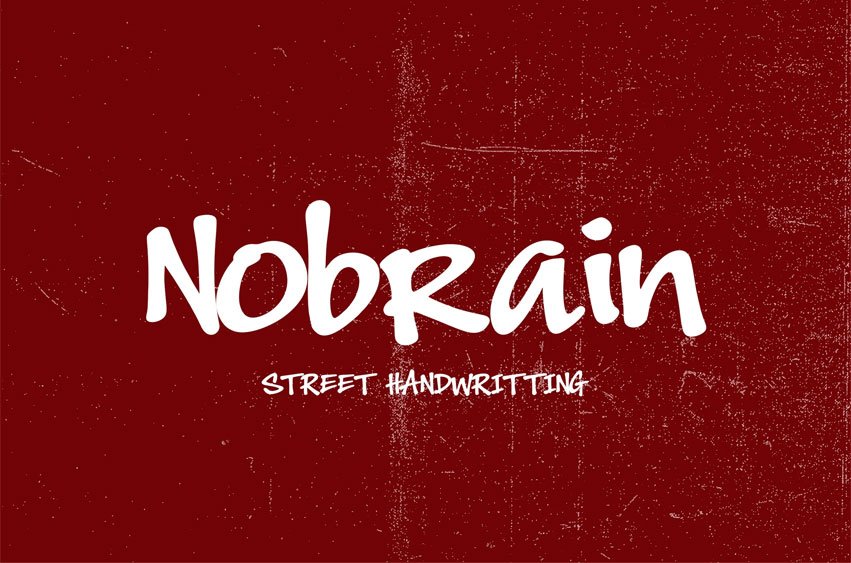
Nobrain Font is suitable for flyers, posters, novels, letterheads, or any design requirements you want to be awesome.
It will certainly amaze your readers.